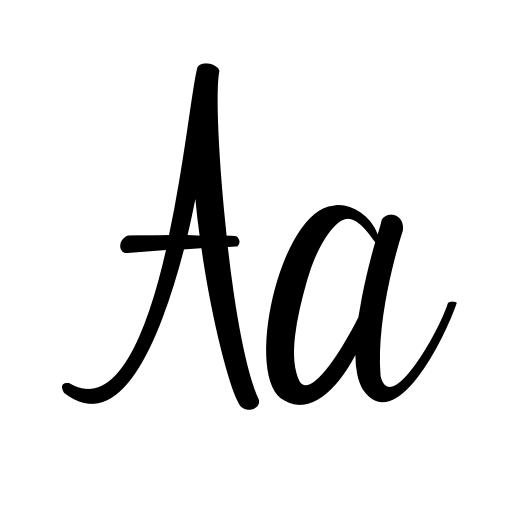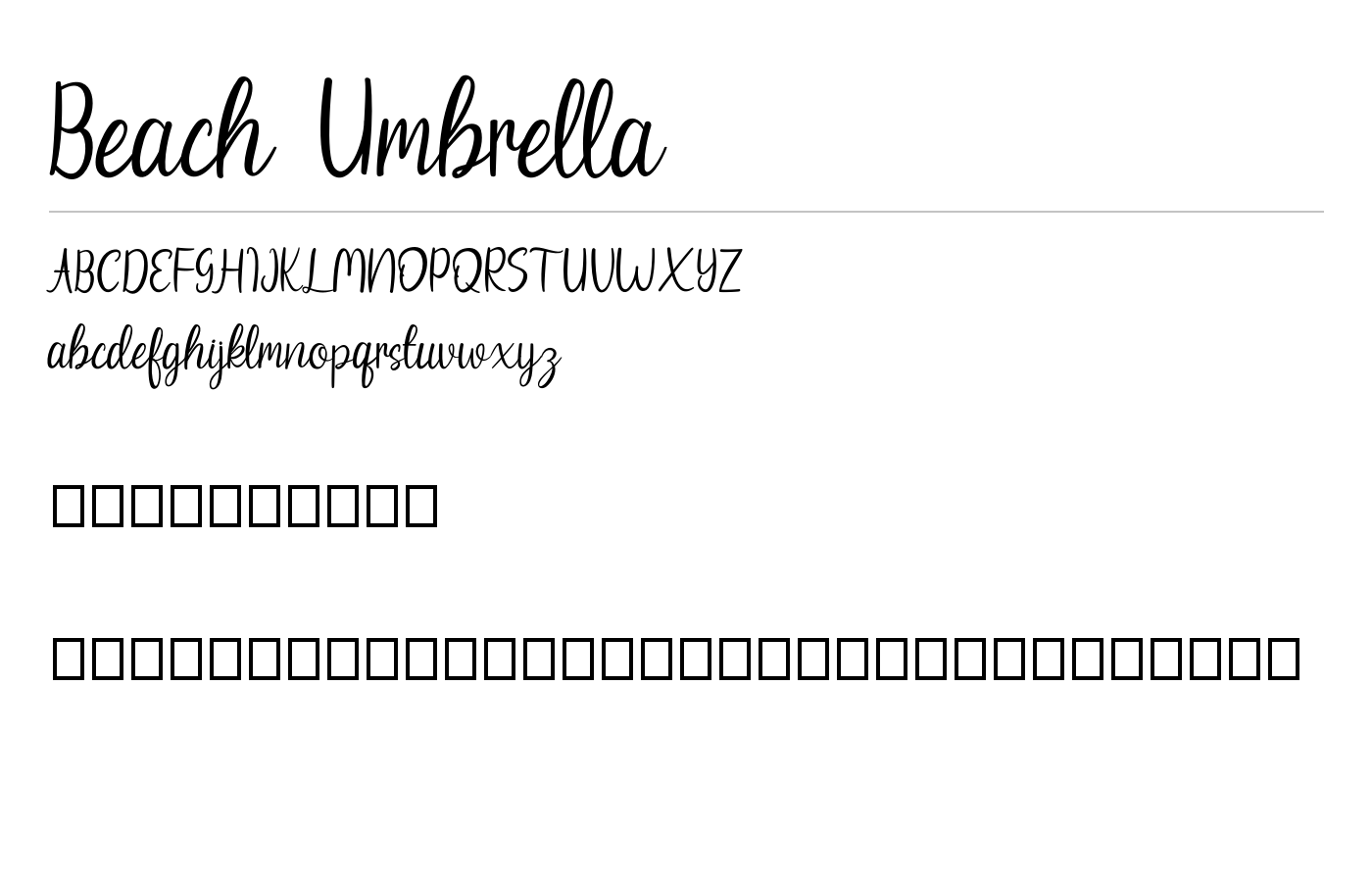
Beach Umbrella is a whimsical handwritten script font with a playful and casual vibe. Its slender, slightly irregular strokes and flowing letterforms create a friendly and approachable feel, perfect for designs that need a personal, charming touch. Ideal for invitations, greeting cards, branding, and anything that calls for a lighthearted, creative look.
Beach Umbrella Font